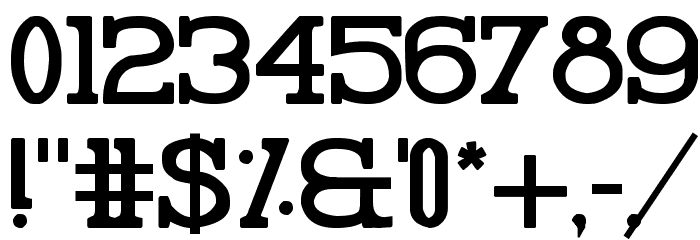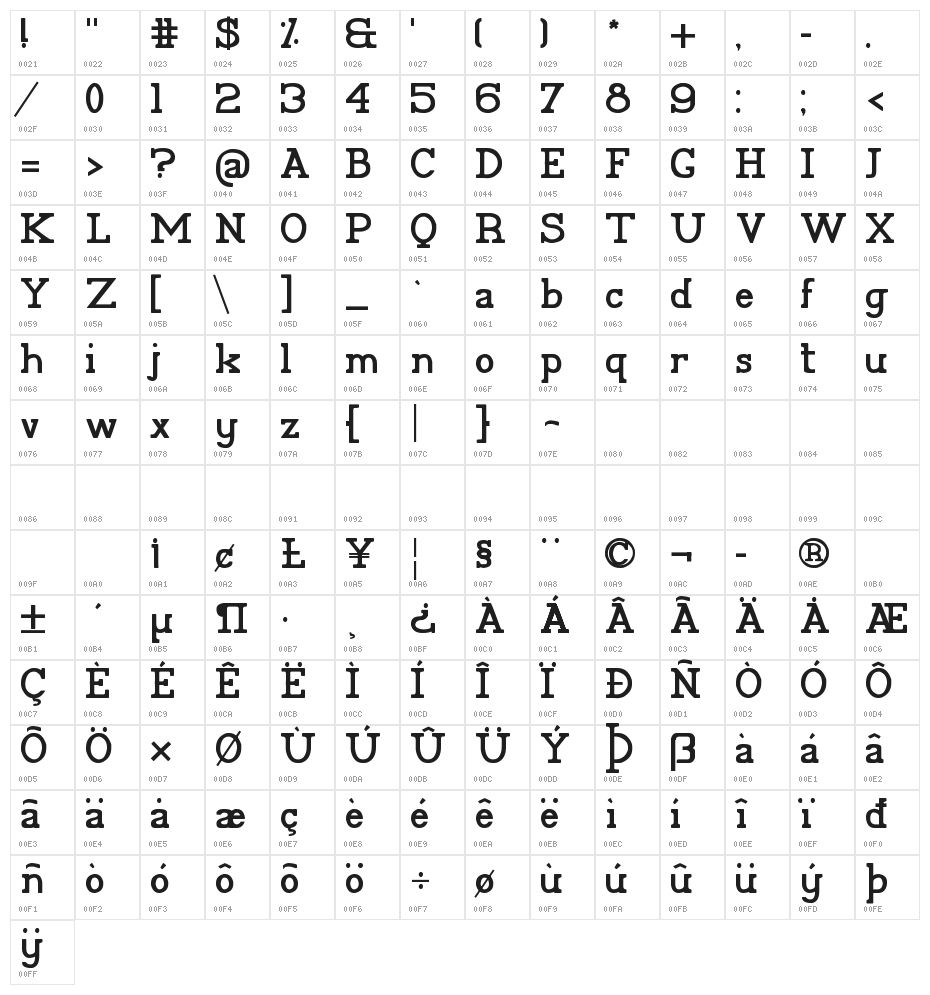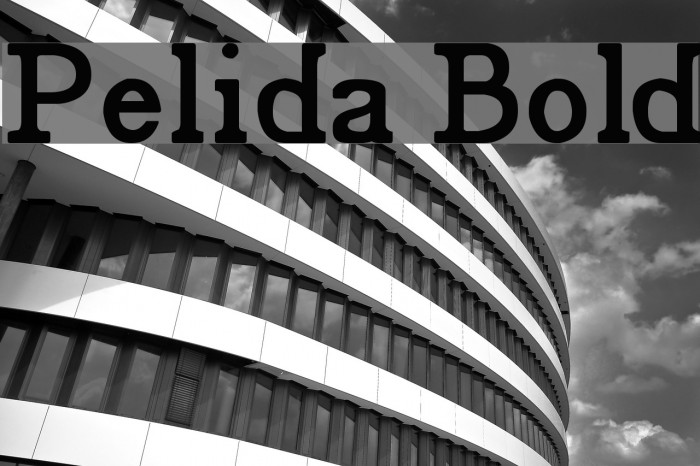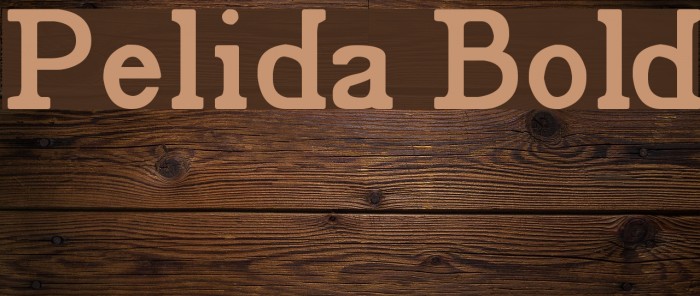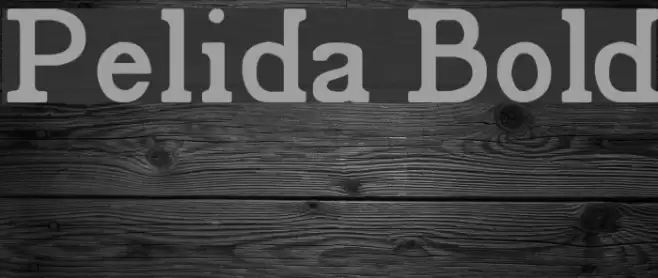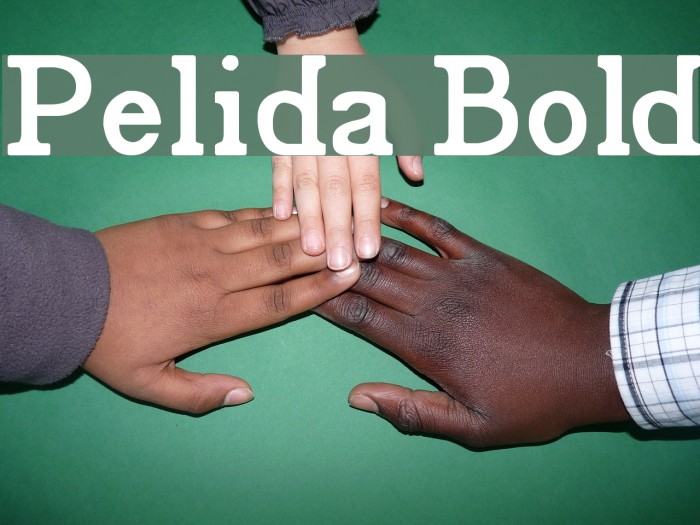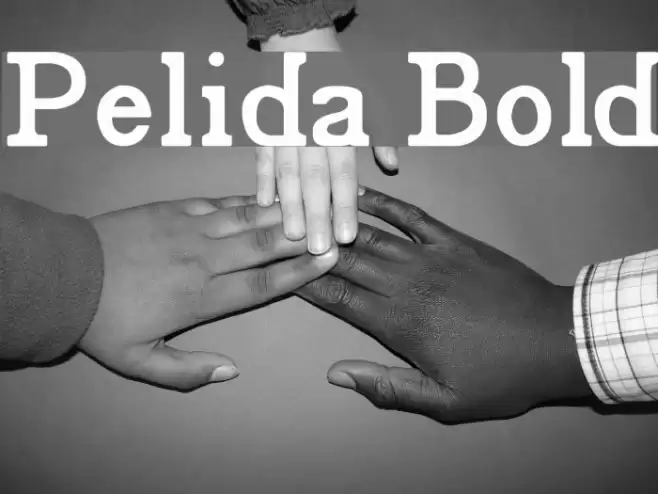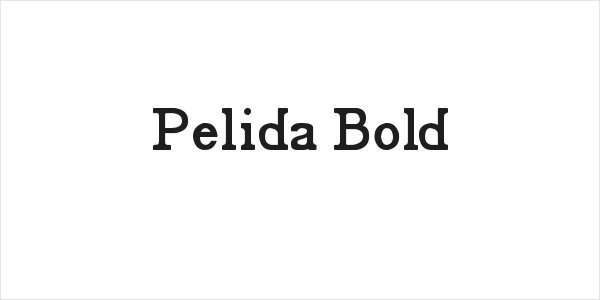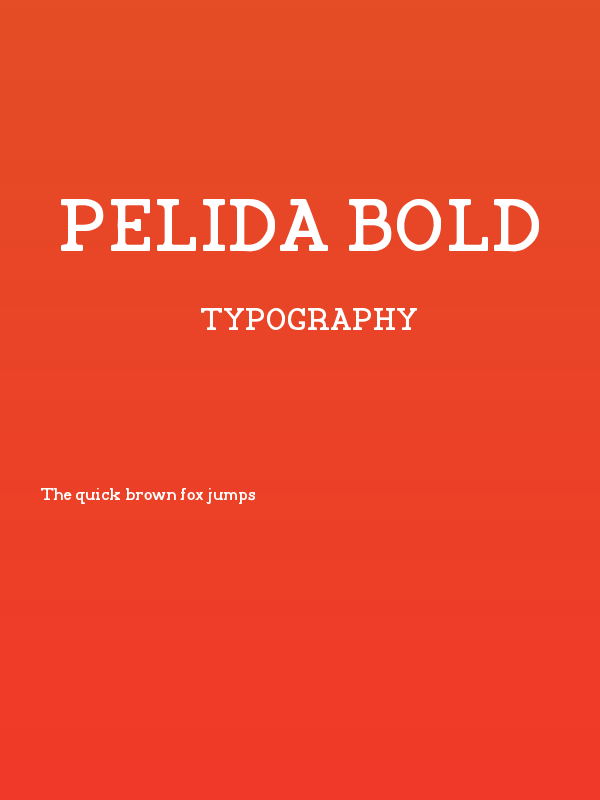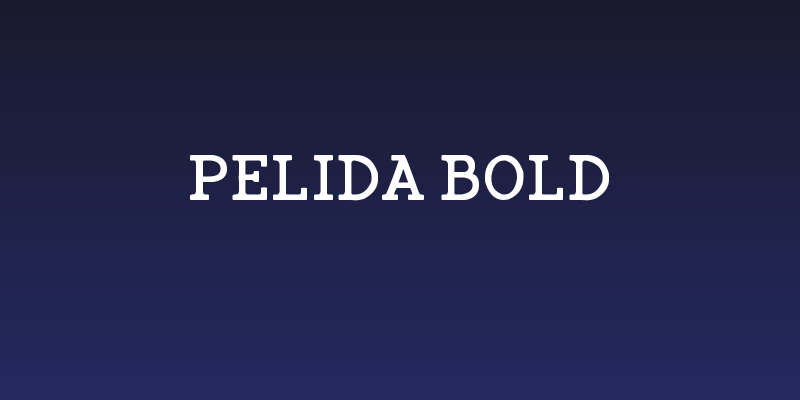
Pelida Bold Font
Pelida Bold Description
This font features a bold and robust design with strong serifs that give it a distinctive and authoritative appearance. The characters are well-defined with a slightly condensed structure, making it suitable for impactful headlines and titles. The uppercase letters are particularly striking, with a uniform height and width that ensures readability. The lowercase letters maintain a consistent style, complementing the uppercase with a touch of elegance. The numerals are clear and legible, designed to stand out in any context. Special characters are crafted with attention to detail, adding versatility to the font's usage.